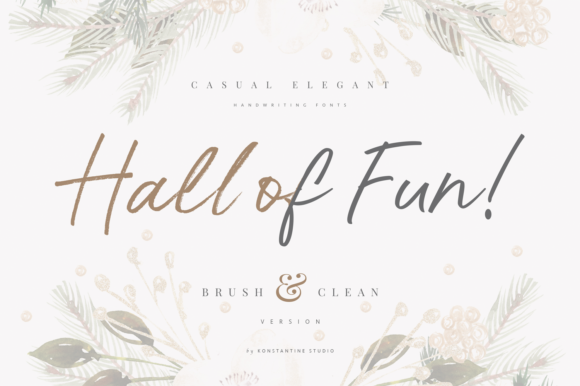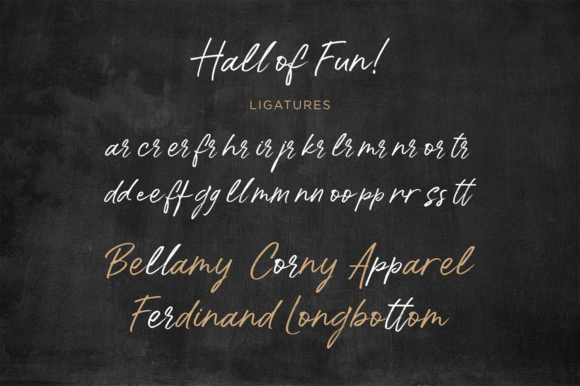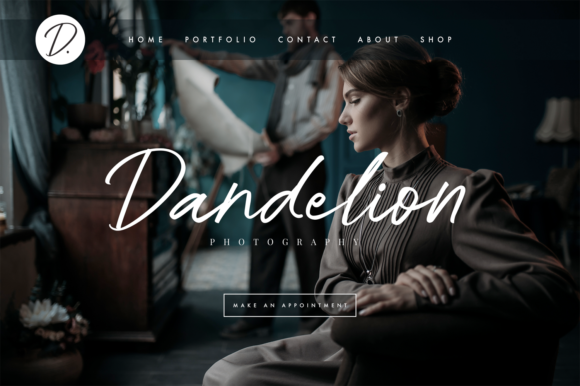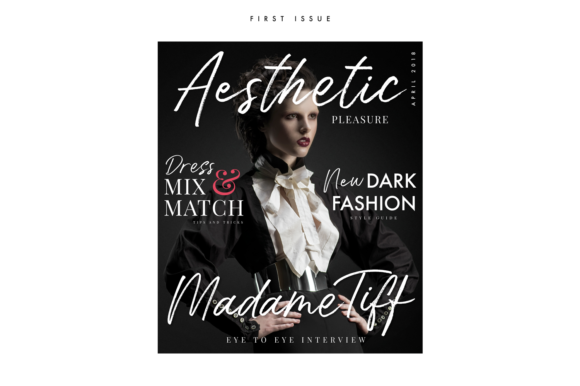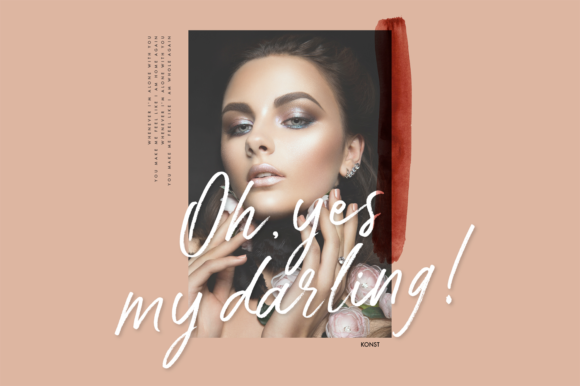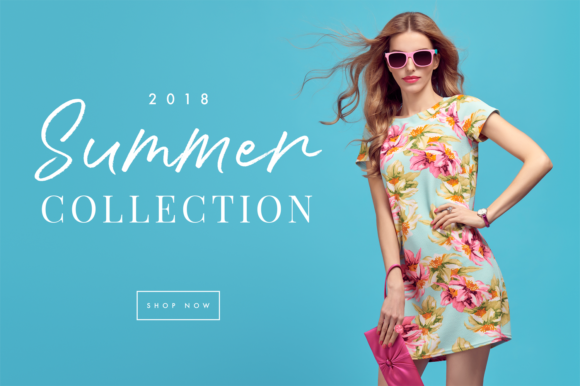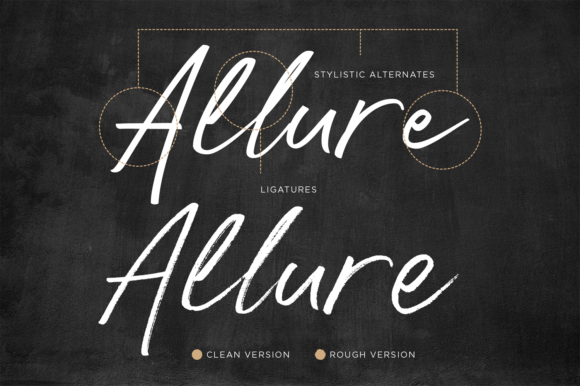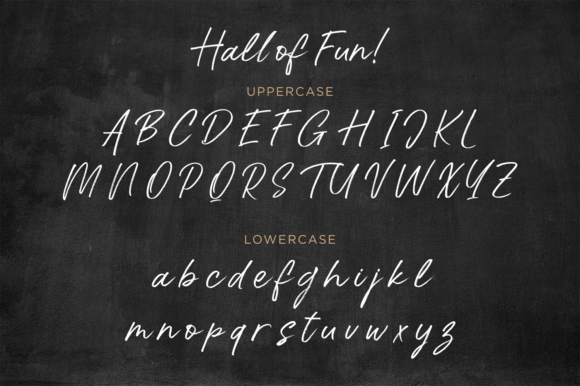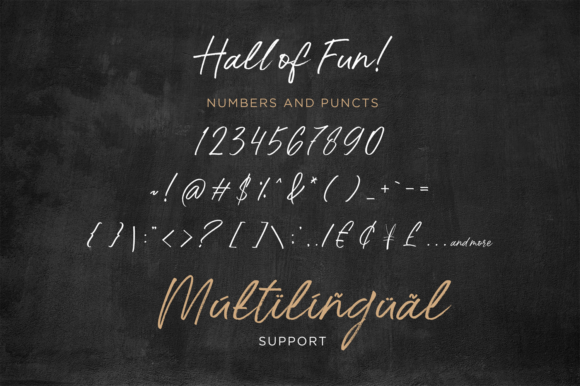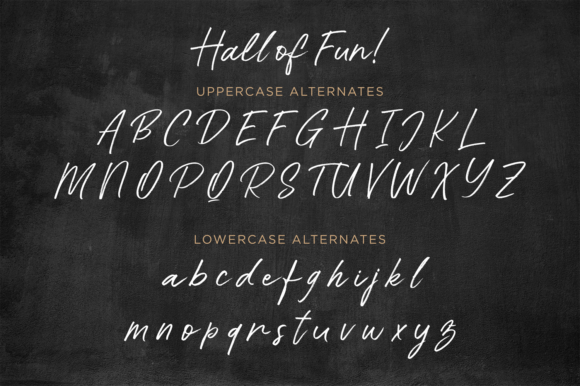
Hall of Fun Font
Hall of Fun, a fast dry brush handwriting script font, comes out with a clean and brush version to fit your needs. Straight from the hands and will be a perfect pair for fashion branding, logo, social media marketing, presentation, vintage products, make yourself stand out with the Hall of Fun right away!